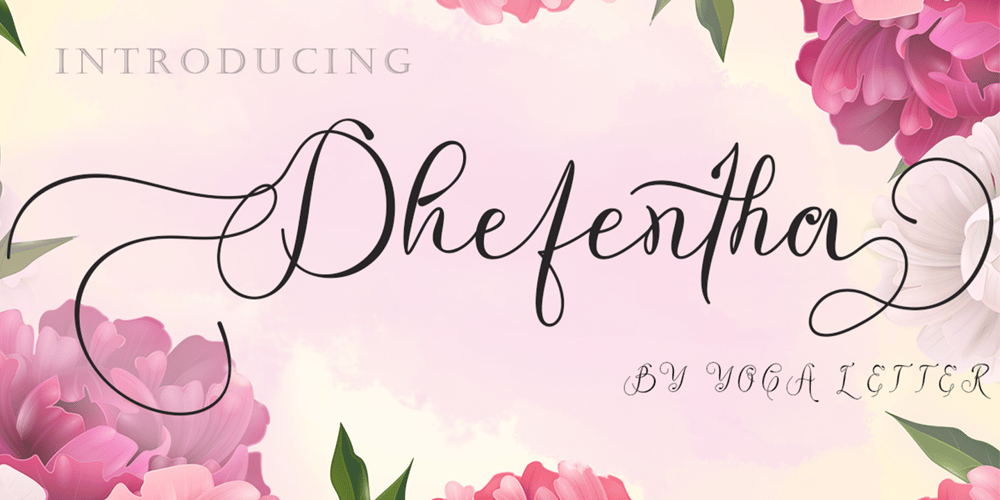
Dhefentha Font Family was designed by Isroni Yoga Prasetya and published by Yoga Letter. Dhefentha contains 1 styles and family package options. “Dhefentha” is a unique and elegant handwritten font. Equipped with uppercase letters, lowercase letters, numerals, punctuations, swash, titling, uppercase alternates, ligatures and multilingual support. This font is very suitable for Valentine’s Day, wedding, engagement, Christmas, fall and others.